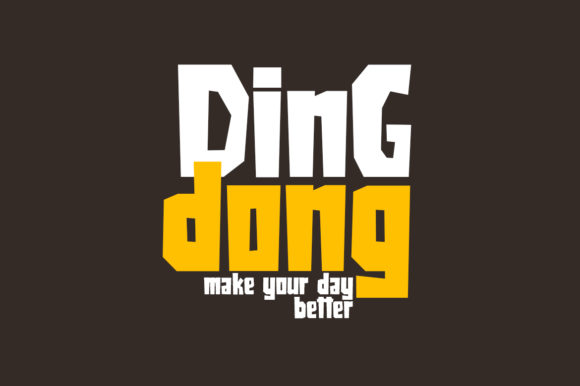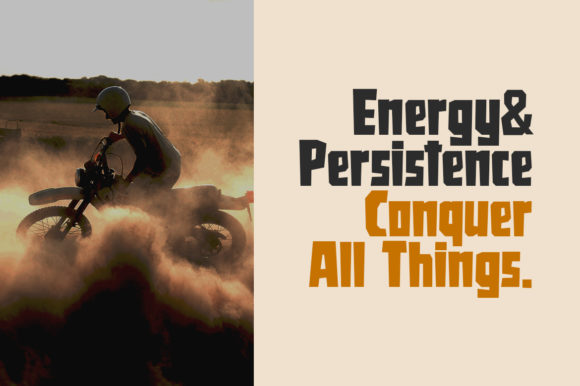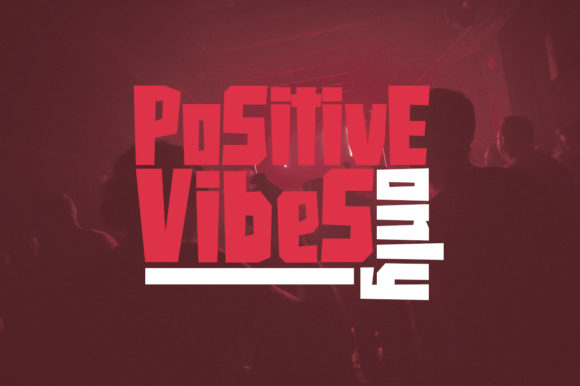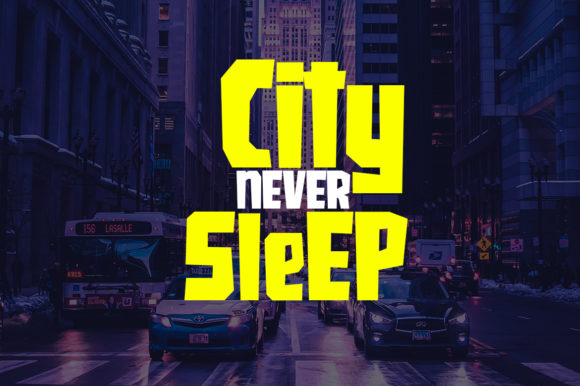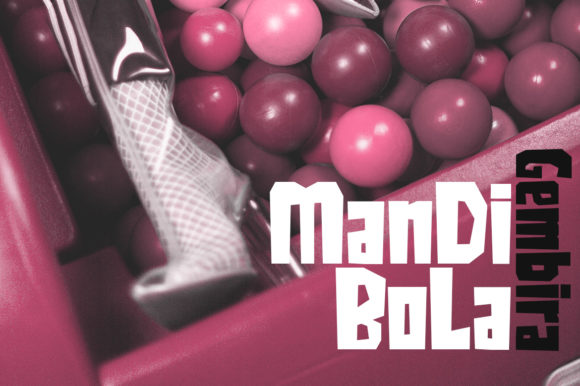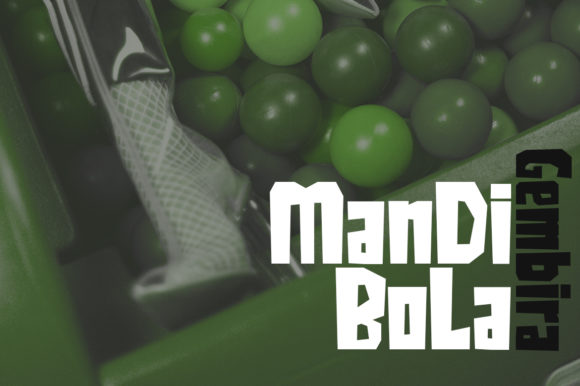
Girock Font: Unleashing Creative Possibilities with its Playful and Bold Display
In the realm of typography, fonts play a pivotal role in shaping the visual identity of a design project. Among the myriad of fonts available, Girock stands out for its unique blend of playfulness and boldness, making it an excellent choice for designers and crafters looking to infuse their creations with a dynamic charm. In this article, we’ll delve into the characteristics of the Girock font, its uses, and why it has become a go-to for creatives seeking to make a statement.
The Essence of Girock Font
Girock is an equally playful and bold display font, designed to capture attention and inspire creativity. Its dynamic charm lies in its ability to convey a sense of fun and professionalism simultaneously, making it versatile for various design projects. Whether you’re working on a branding campaign, a website, or a crafting project, Girock offers a fresh and exciting way to express your ideas.
Key Features of Girock Font
- Playful and Bold: Girock’s design combines playful elements with bold strokes, creating a unique visual impact that sets it apart from more traditional fonts.
- Dynamic Charm: The font’s dynamic nature makes it perfect for projects that require a touch of personality and flair.
- Versatility: Girock can be used across a range of mediums, from digital platforms to print materials, offering designers flexibility in their creative processes.
- Legibility: Despite its bold and playful design, Girock maintains a high level of legibility, ensuring that messages are conveyed clearly and effectively.
Applications of Girock Font
The versatility of Girock font makes it suitable for a wide array of applications. Here are some of the most popular uses:
- Branding and Logos: Girock’s unique style makes it an excellent choice for branding and logo design, helping businesses stand out with a memorable visual identity.
- Digital Media: For websites, social media posts, and digital advertisements, Girock can add a playful yet professional touch, engaging audiences effectively.
- Print Materials: From brochures and posters to business cards and merchandise, Girock font can elevate print materials with its dynamic and bold appearance.
- Crafting and DIY Projects: Crafters and DIY enthusiasts can also benefit from using Girock for their project titles, descriptions, or packaging, adding a personal and creative flair.
Tips for Using Girock Font Effectively
To maximize the impact of Girock font in your designs, consider the following tips:
- Pair with Complementary Fonts: Combine Girock with simpler fonts to create contrast and balance in your designs.
- Experiment with Colors: Don’t be afraid to try out different colors that complement the bold and playful nature of Girock.
- Consider the Context: Ensure that the use of Girock aligns with the overall tone and message of your project.
- Play with Sizes and Weights: Utilize different sizes and weights of Girock to add hierarchy and depth to your designs.
Girock font offers a refreshing blend of playfulness and boldness, making it a valuable addition to any designer’s or crafter’s toolkit. Its dynamic charm and versatility open up a world of creative possibilities, from captivating branding campaigns to engaging digital content and charming crafting projects. By understanding the characteristics of Girock and how to use it effectively, creatives can unlock new avenues for expression and connection with their audiences. So, get inspired by Girock’s unique appeal and let it guide your next design venture towards a path of innovation and creativity.